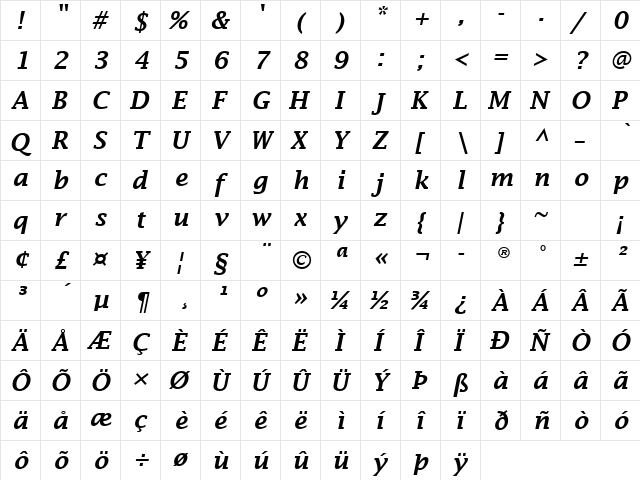
Lucida Fax Demibold Italic
Design Context for Lucida Fax Typeface
Lucida Fax is a composed and adaptable typeface that performs quietly and consistently across a wide range of design contexts. The dynamic lean of this cut emphasises speed and emphasis in any layout. Its bold stroke weight gives it real presence on the page.
Pro Tip: Try Lucida Fax for annotation and caption copy alongside an upright companion — the contrast in angle creates a dynamic but ordered typographic system.